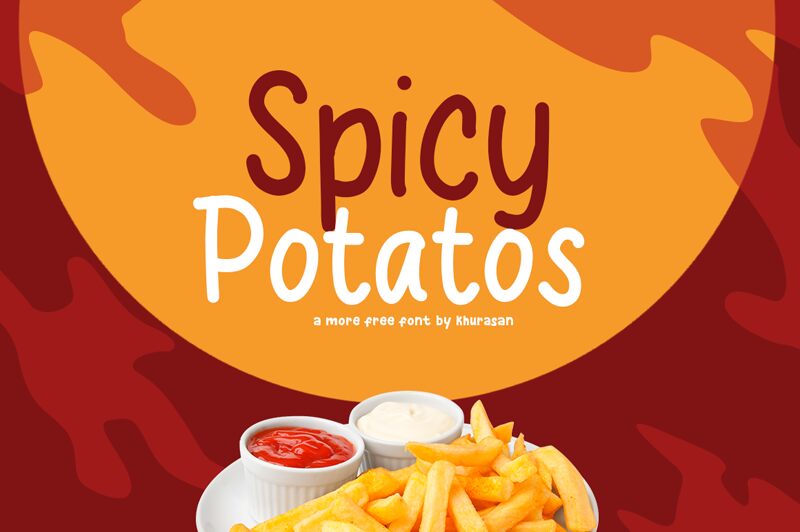
Spicy Potatos, a delightful handwritten font by Khurasan, adds a touch of whimsy and playfulness to any project.
Its semi-light weight lends an airy and approachable feel to invitations, greeting cards, and scrapbooks. With its organic strokes and charming imperfections, this font evokes warmth and authenticity ideal for food blogs or recipe books. Spicy Potatos is also perfect for children's books or nursery decor, capturing the imagination with its playful flair.